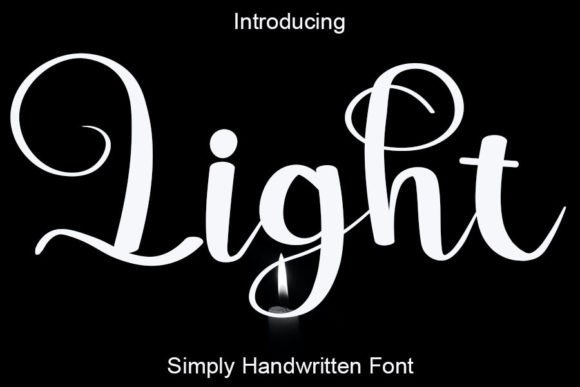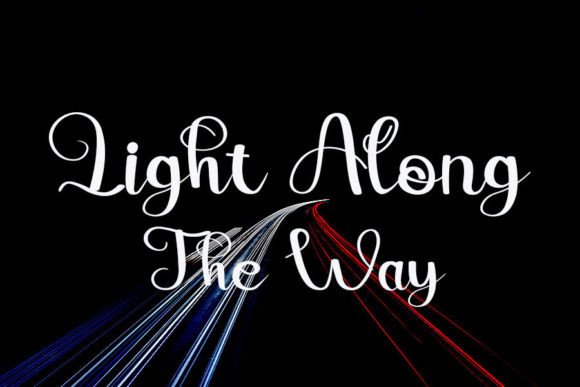
About Light Font
Light is a captivating and beautifully crafted handwritten font distinguished by its neat and elegant touch, making it an ideal choice for your favorite projects. Fall in love with its incredibly distinct and timeless style, and leverage its versatility to create truly spectacular designs.
The neatness of Light is immediately apparent, offering a clean and organized aesthetic that ensures clarity and precision in your designs. Each letter is meticulously shaped, contributing to the font’s overall polished appearance.
The beauty of Light lies in its handwritten elegance. The graceful strokes of each character convey a timeless charm, adding a touch of sophistication to your projects. This font not only conveys information but also elevates your design, infusing it with a sense of style and grace.
Whether you’re working on branding, invitations, stationery, or any creative endeavor, Light seamlessly integrates into your vision. Its timeless style ensures versatility, allowing you to create designs that endure changing trends, making it a reliable and enduring choice.
Light transcends its role as a font and becomes a design partner, transforming ordinary projects into extraordinary works of art. Its distinct and beautiful qualities position Light as a go-to choice for designers looking to infuse visually stunning and impactful elements into a wide array of creative endeavors. Embrace its neat and elegant characteristics, fall in love with its timeless style, and watch as Light enhances the visual appeal of your favorite projects, making them truly spectacular.